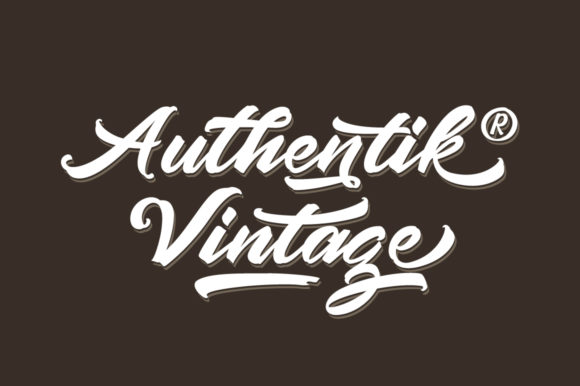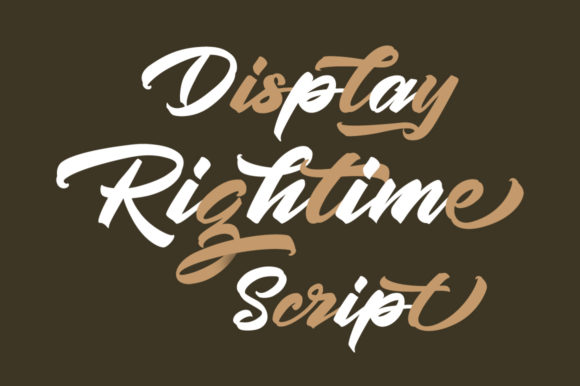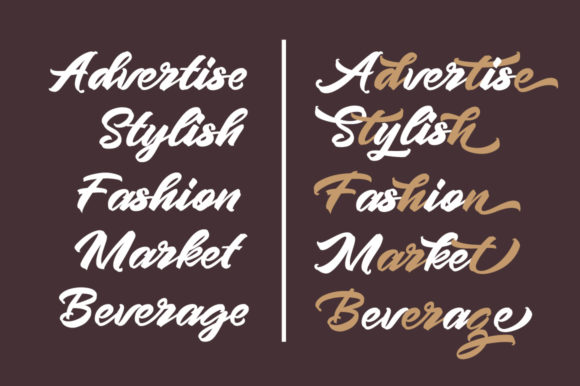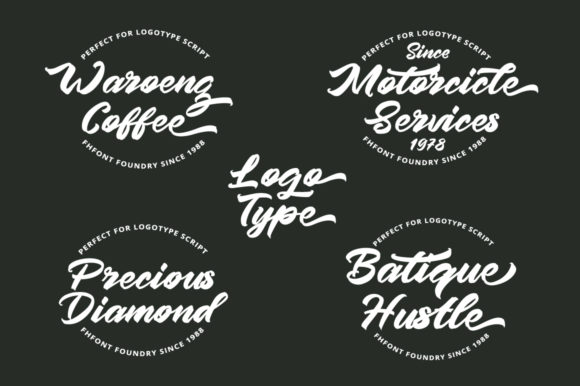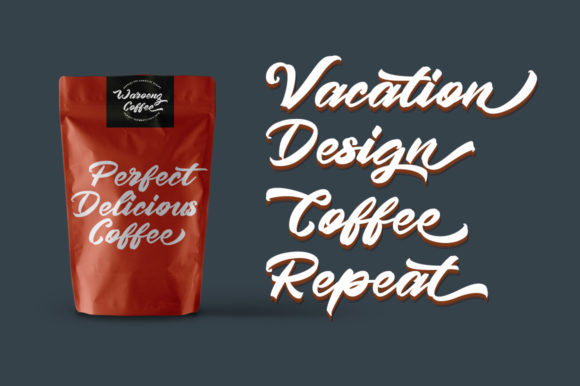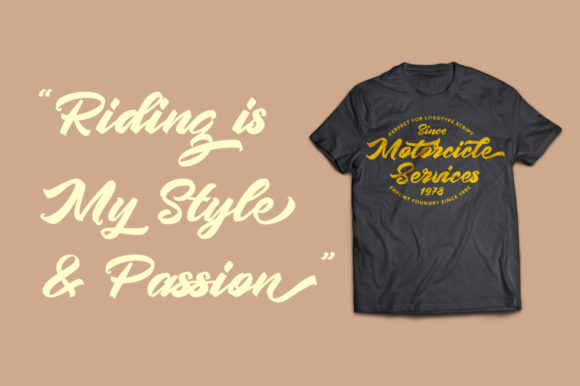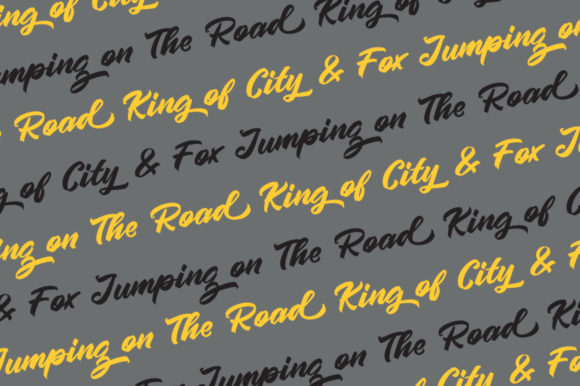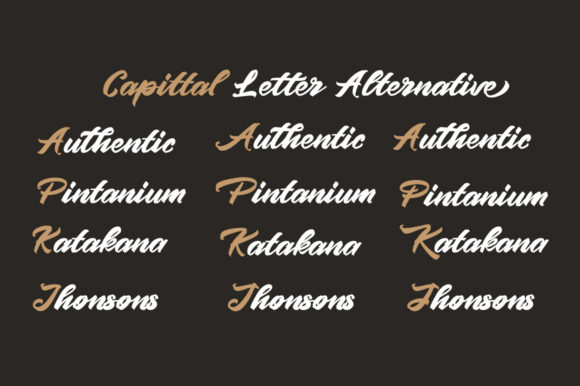
HomeScript FontsPintenium Font Script Fonts Pintenium Font FacebookXPinterestWhatsApp Pintenium Font Poster 2 Pintenium Font Poster 3 Pintenium Font Poster 4 Pintenium Font Poster 5 Pintenium Font Poster 6 Pintenium Font Poster 7 Pintenium Font Poster 8 Pintenium Font Poster 9 About Pintenium Font Pintenium is a charming script font with many alternates to make you design project unique. DOWNLOAD NOW People also explored Homeroom Font Sriyatno Font Loganberry Font Popularite Font Malefoy Font Armani Font Lenatr Font Lightning Font Cornelia Font 373 0 TagsPintenium Font Previous articleSimpletune FontNext articleBreak Stones Font LEAVE A REPLY Cancel reply Comment: Please enter your comment! Name:* Please enter your name here Email:* You have entered an incorrect email address! Please enter your email address here Website: Save my name, email, and website in this browser for the next time I comment. Personal Use Free Unsteady Overseer Personal Use Free Read more about this font Borg Personal Use Free Read more about this font Zojihun Personal Use Free Read more about this font BD Geminis Personal Use Free Read more about this font BLOG Top 7 Google Fonts Alternatives for Faster and Privacy-Friendly Web Design (2025) Top 7 Google Fonts Alternatives for Faster and Privacy-Friendly Web Design (2025) When it comes to web typography, Google Fonts has long been the go-to... Best Fonts for T-Shirt Design – Top 2025 Picks To increase your work productivity, choose the most readable fonts. Transform Your Website: Elevate Your Typography with 7 Best Web Font Generators